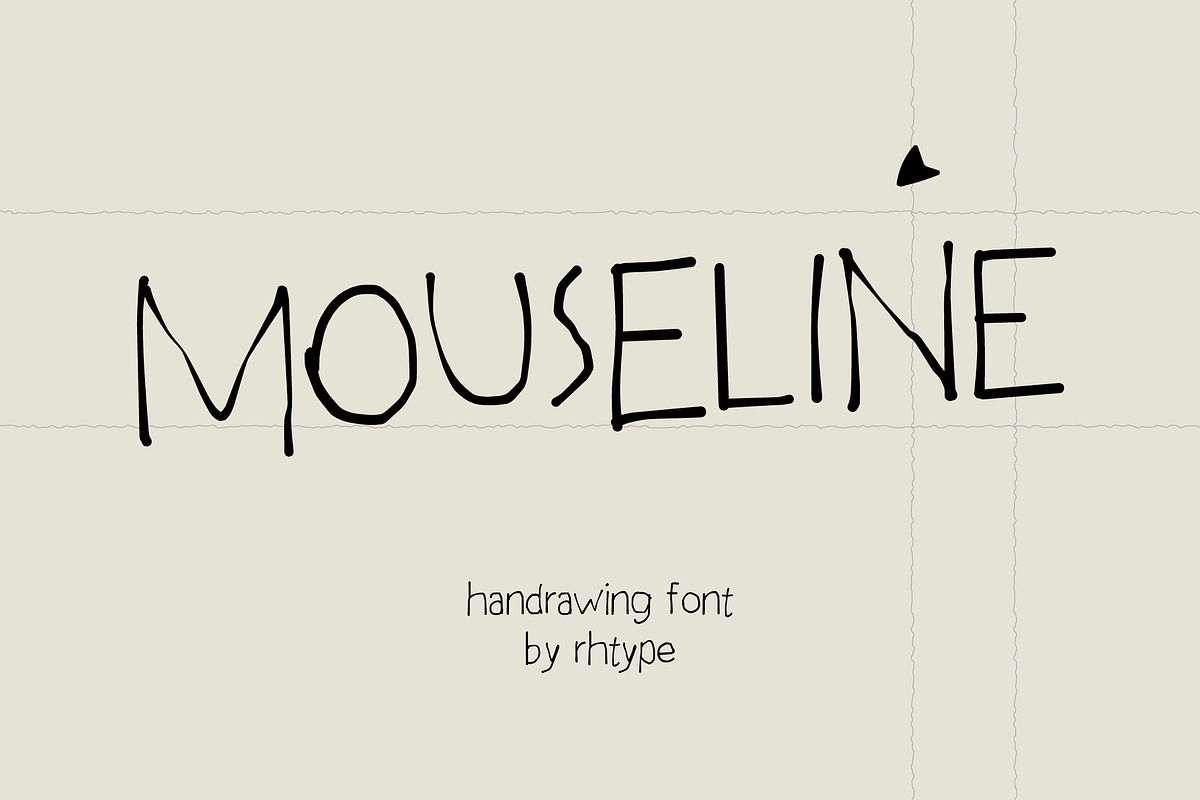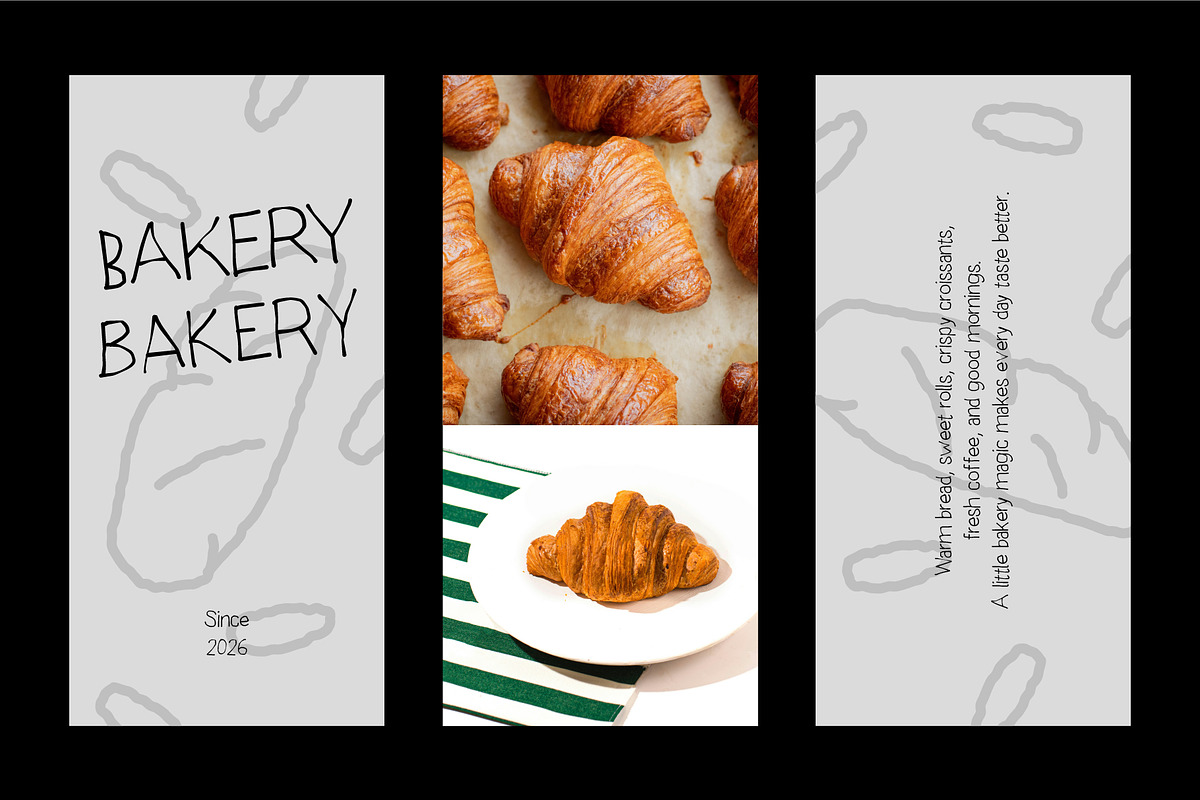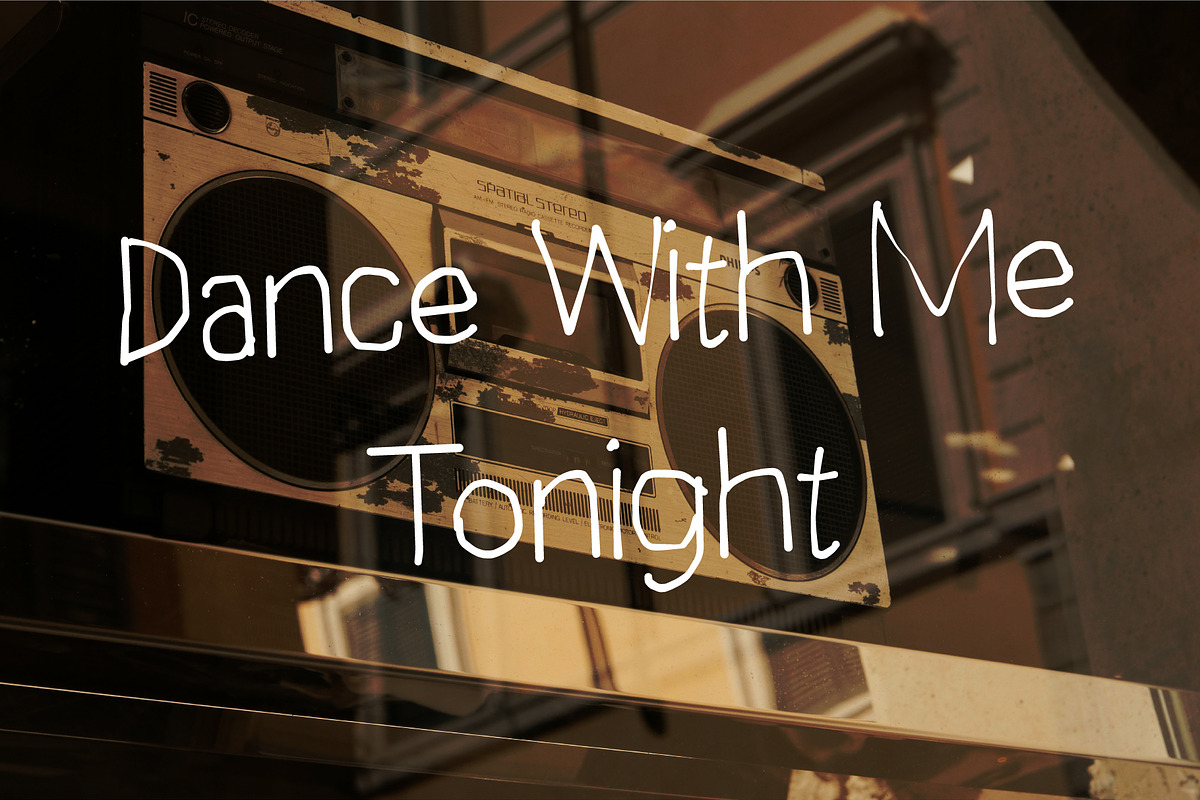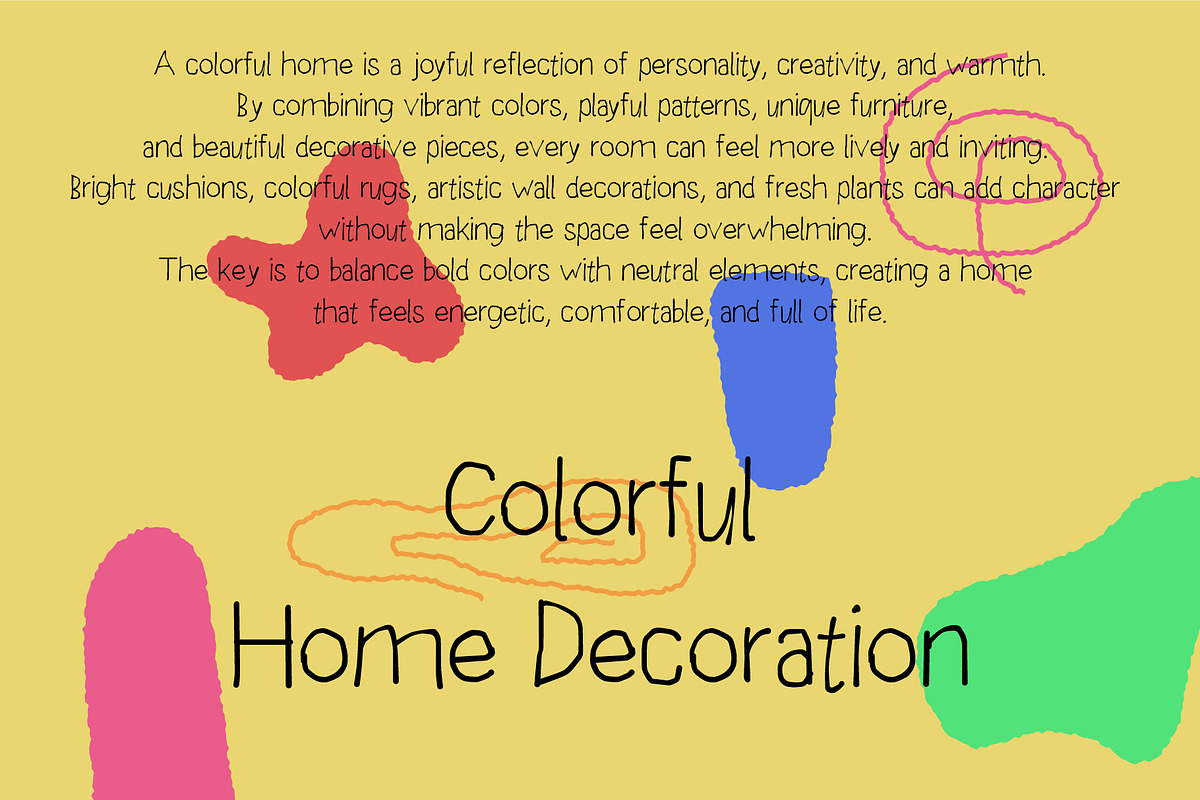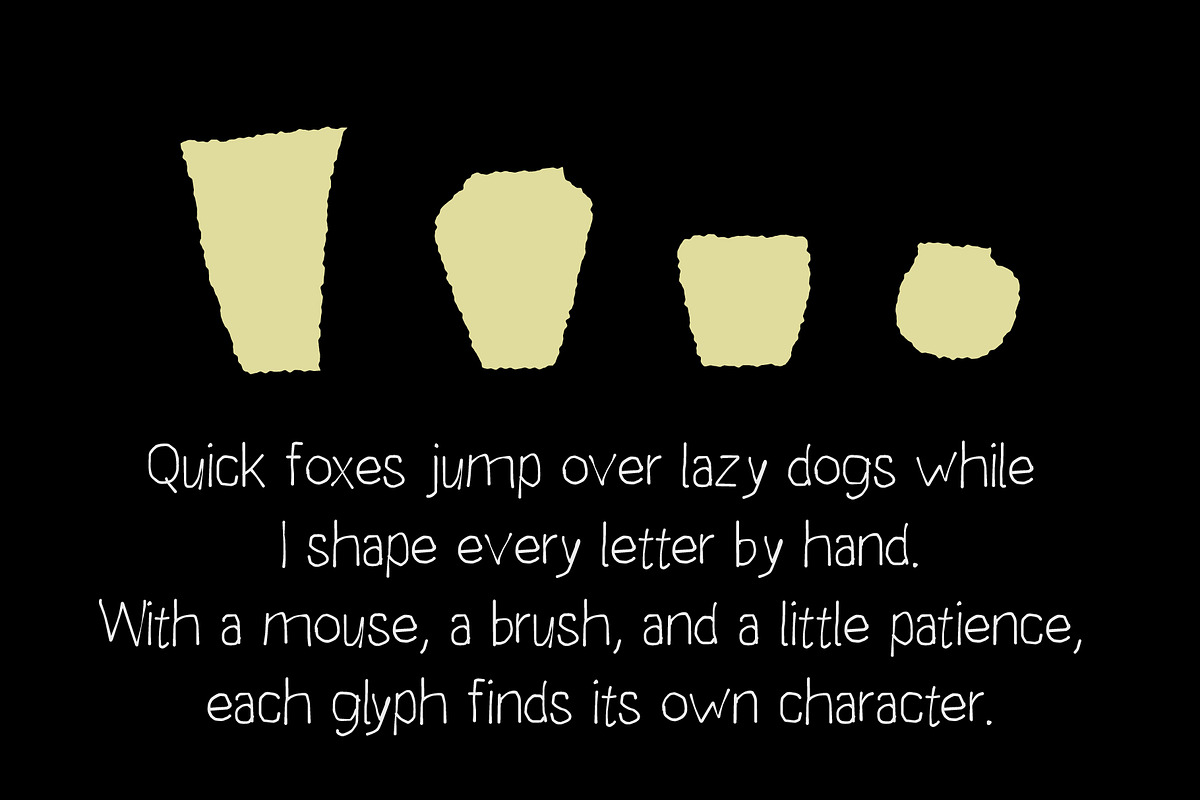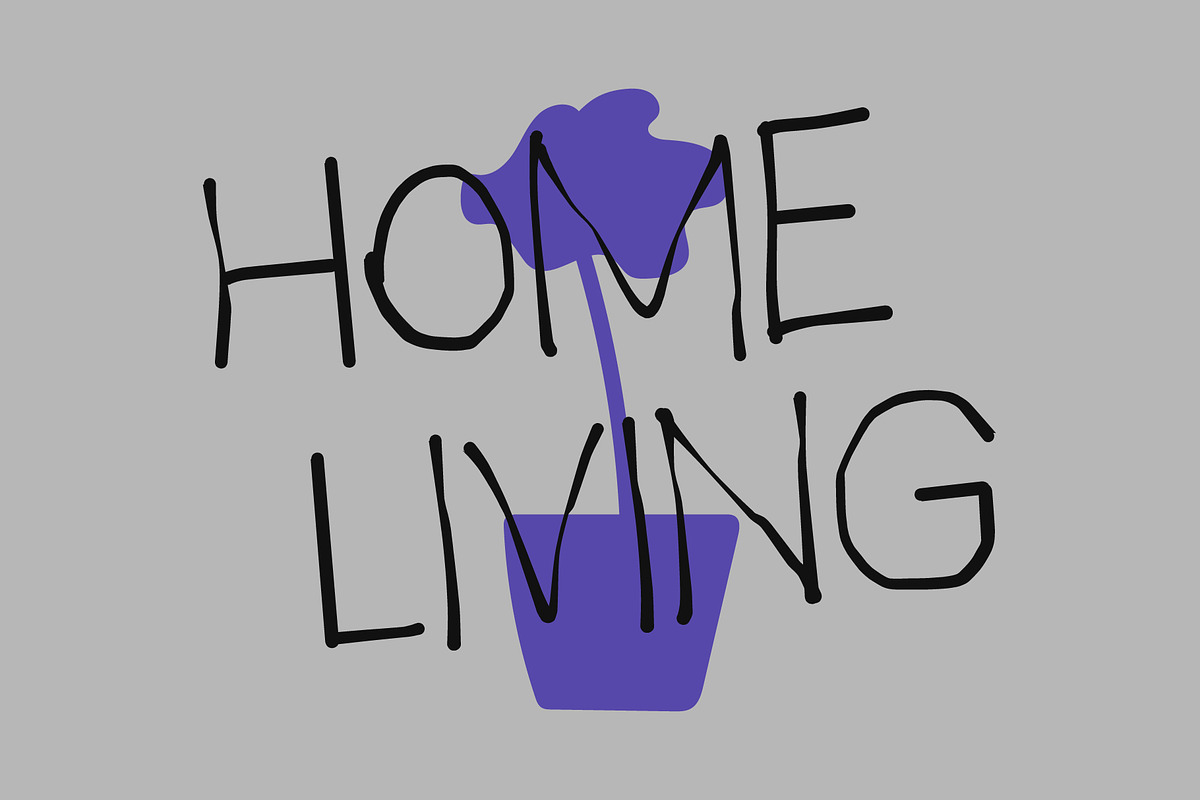
Mouseline
Mouseline — Handrawn Font
Mouseline is a playful and imperfect hand-drawn font created entirely by hand using a computer mouse.
Every letter is drawn manually, giving the typeface its unique, raw, and naturally irregular character. The uneven lines, quirky shapes, and spontaneous details are intentionally preserved to create a genuine handmade feeling — like something sketched quickly in a notebook or drawn directly on a screen.
Mouseline is not designed to look perfectly polished. Its charm comes from its imperfections.
The font works beautifully for projects that need a personal, casual, experimental, or artistic touch. Use it for posters, branding, packaging, social media graphics, editorial layouts, invitations, quotes, album artwork, café and bakery branding, stationery, and creative advertising.